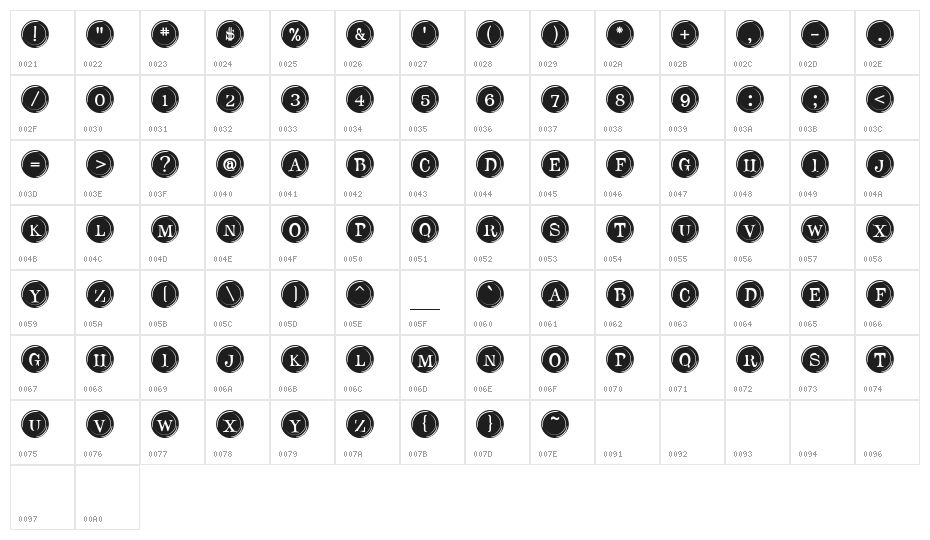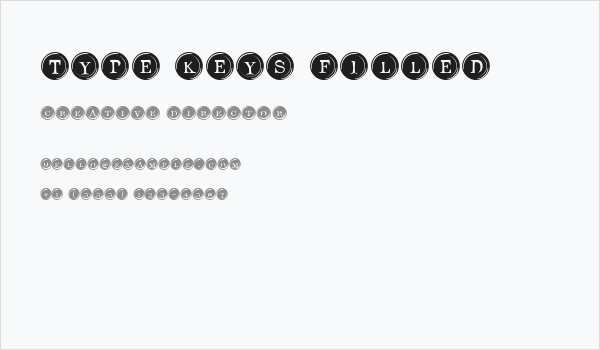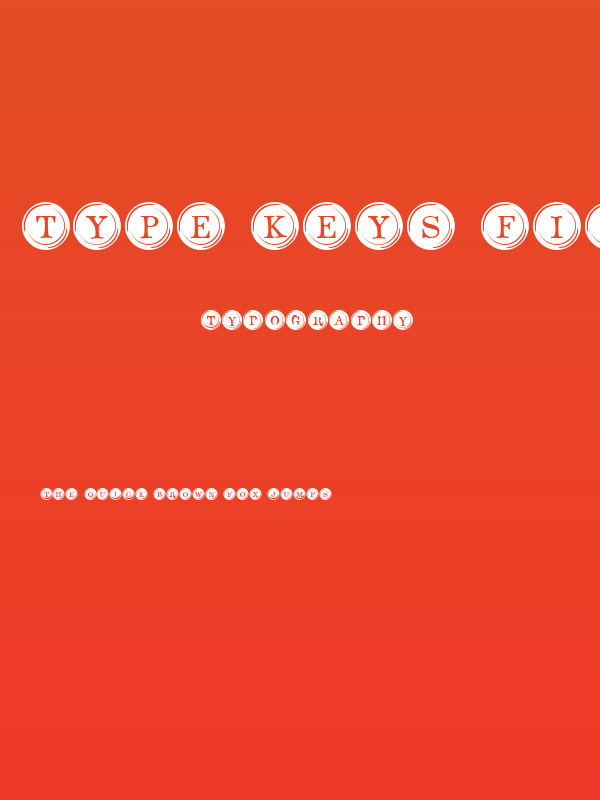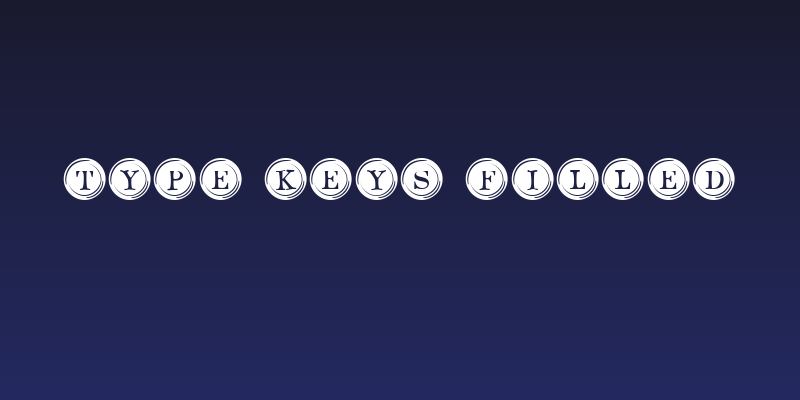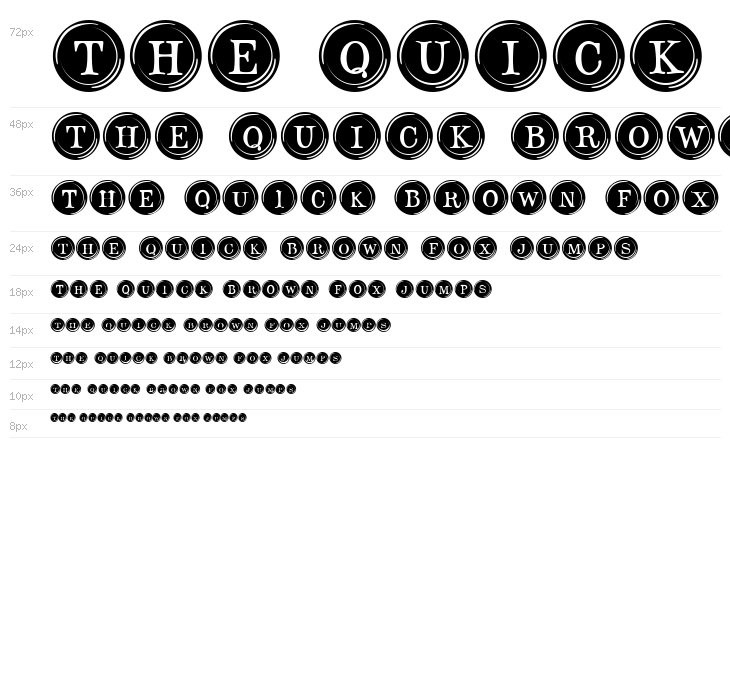
Type Keys Filled Font
Type Keys Filled Description
This font features a unique design where each character is enclosed within a circular key-like shape, reminiscent of vintage typewriter keys. The characters themselves are serifed, adding a touch of classic elegance to the overall appearance. The bold outlines of the circles provide a strong contrast against the inner letters, making each character stand out distinctly. The font includes both uppercase and lowercase letters, numbers, and a variety of special characters, all maintaining the consistent circular enclosure. This design choice gives the font a decorative and nostalgic feel, ideal for projects that aim to evoke a sense of history or retro charm.
| Overall Style | Vintage |
| Use Case | Logos, Headlines, Decorative text |
| Proposed Projects | Ideal for vintage-themed designs, retro posters, branding for nostalgic products, or any project seeking a classic typewriter aesthetic. |